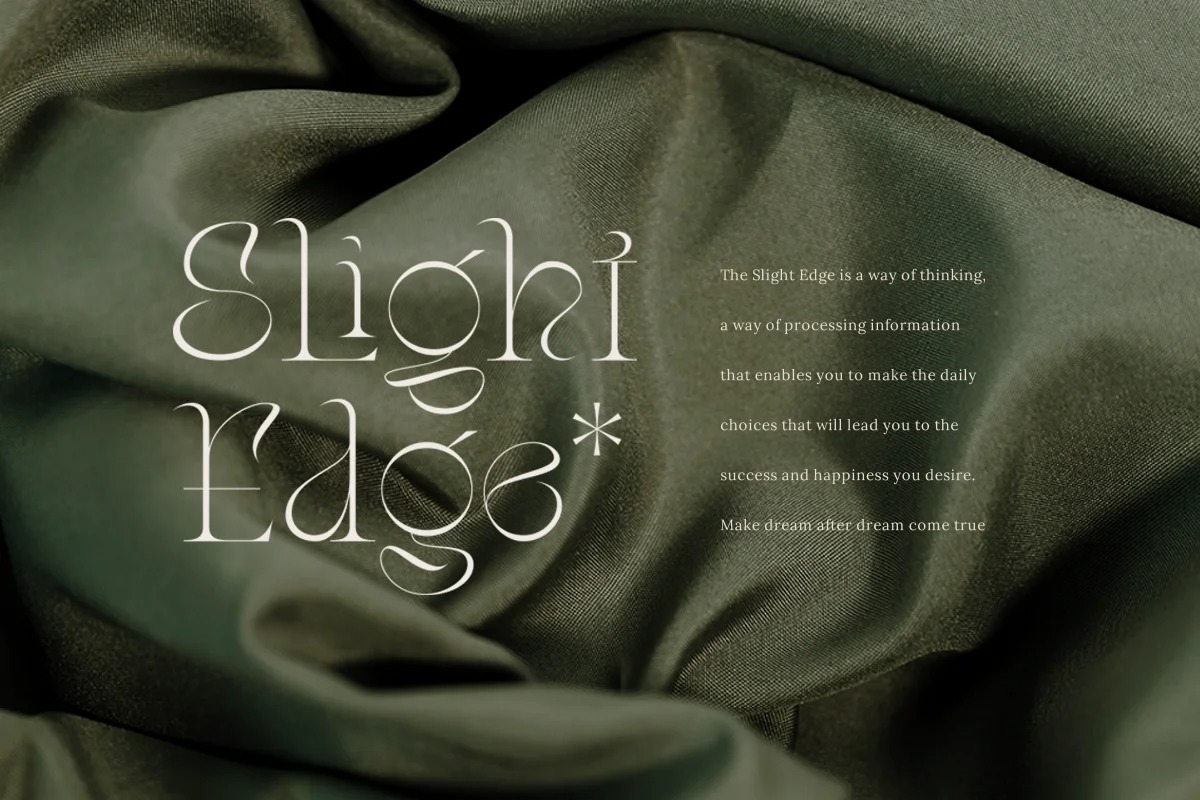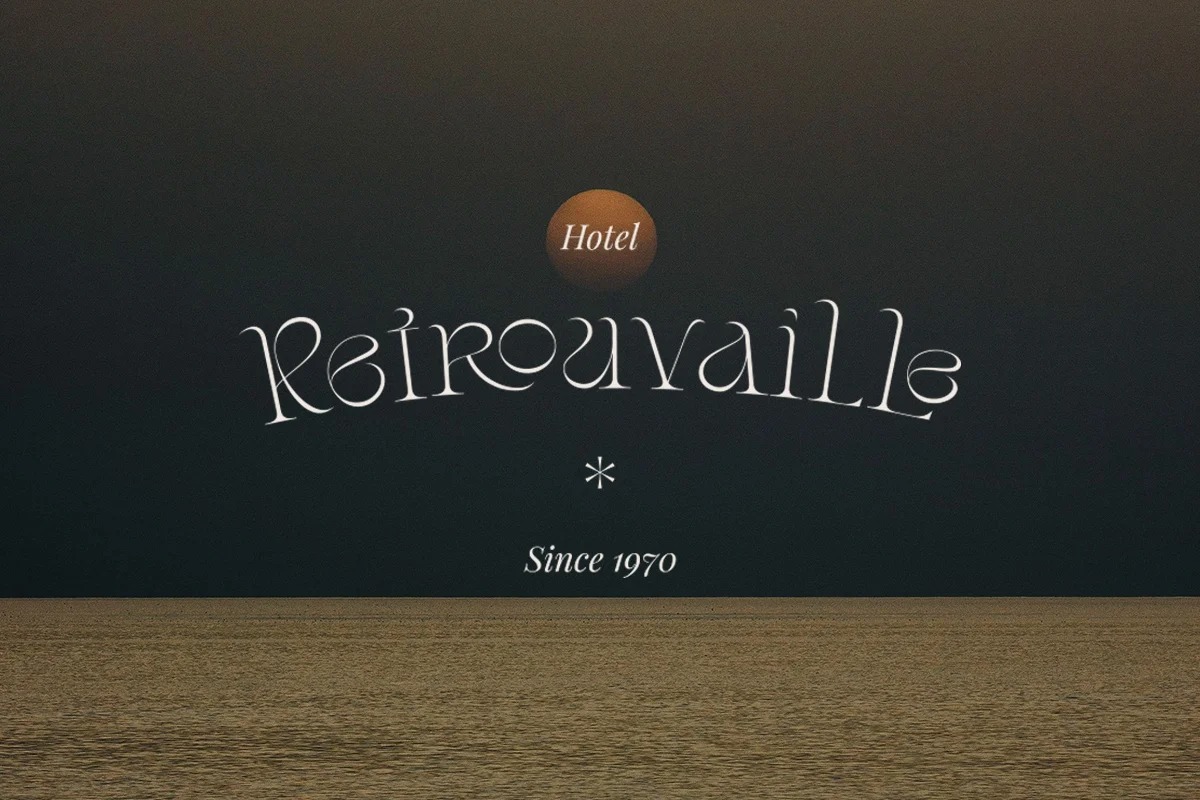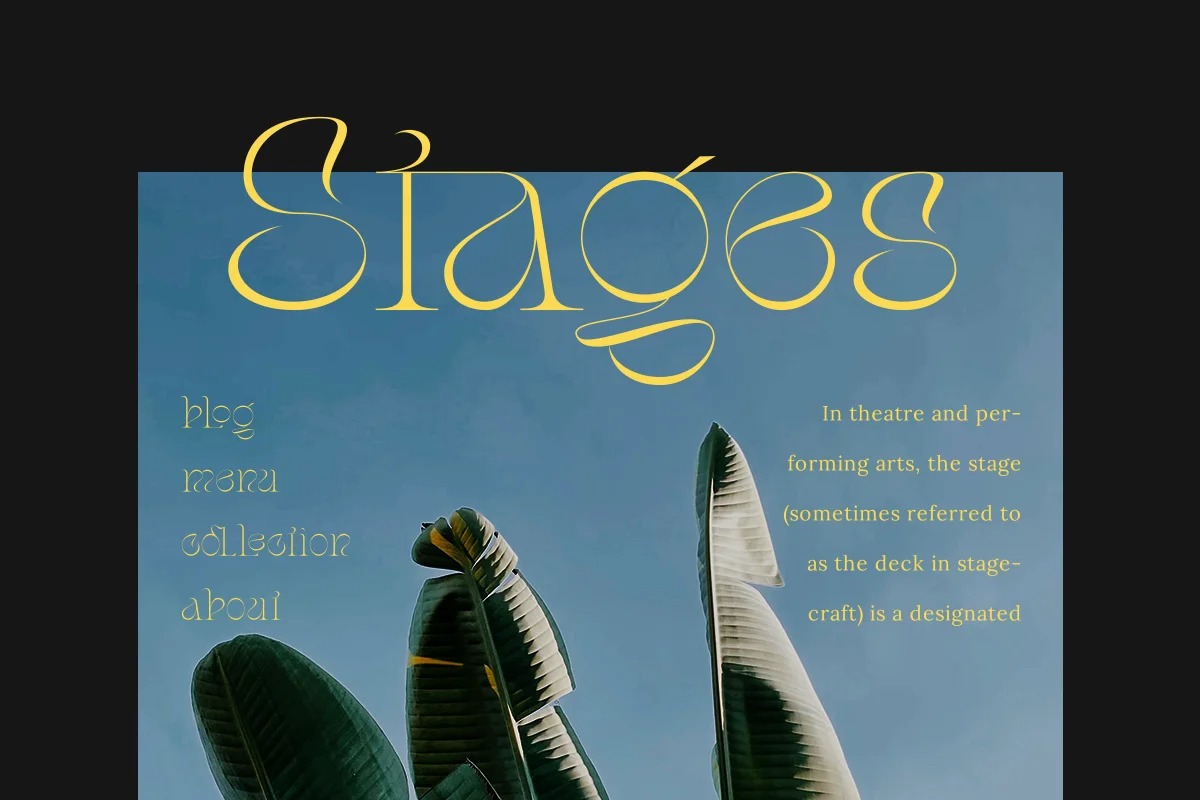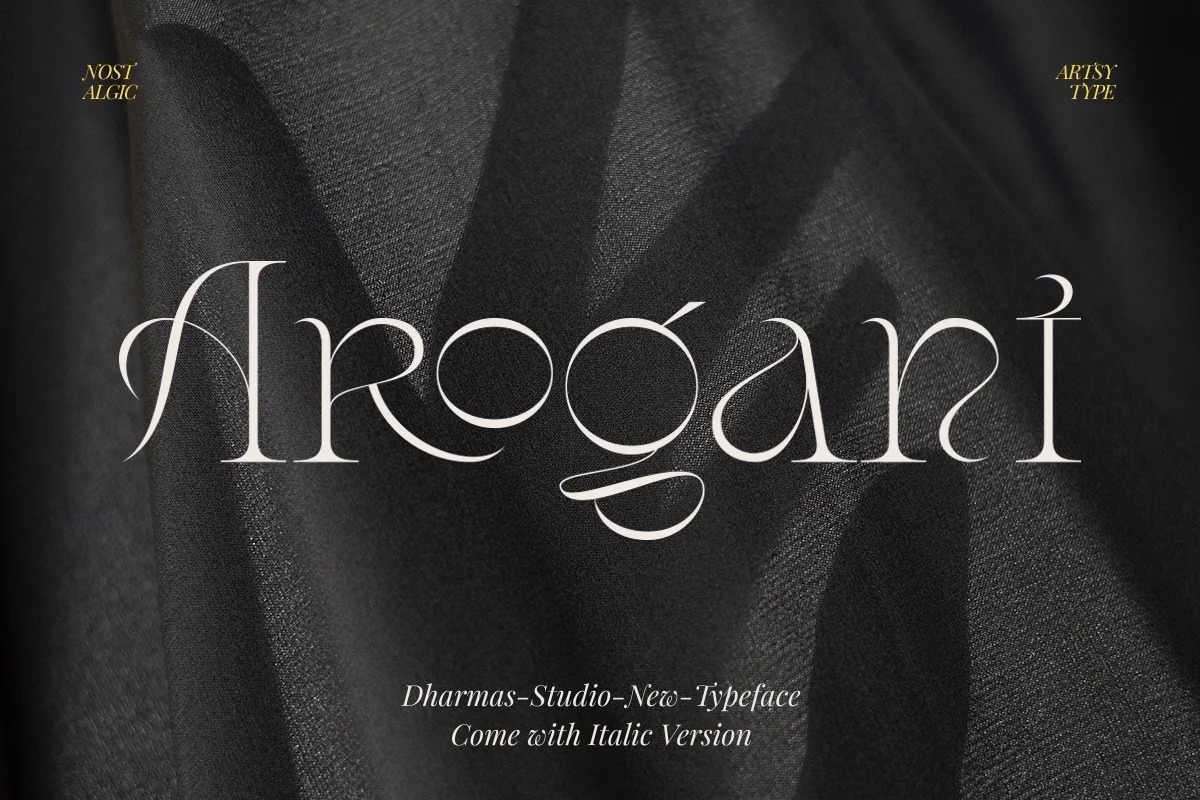
Arogant Font
Arogant Serif Font
This is Unique Classic font, its have many ligatures and alternates. Thin letter anatomy collaborate with unique alternates and beautiful ligature so makes any project seem chic, luxurious, unique, artistic and little retro vibes
Arogant – Come with italic version, so perfectly suitable for creating elegant, simple, retro design such as branding, poster design, books, fashion, social media design, logos, etc.